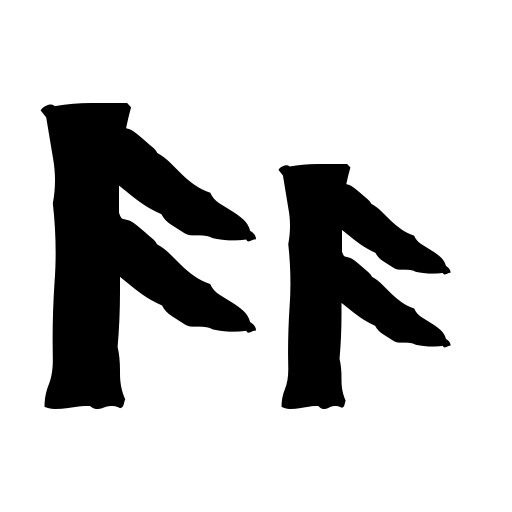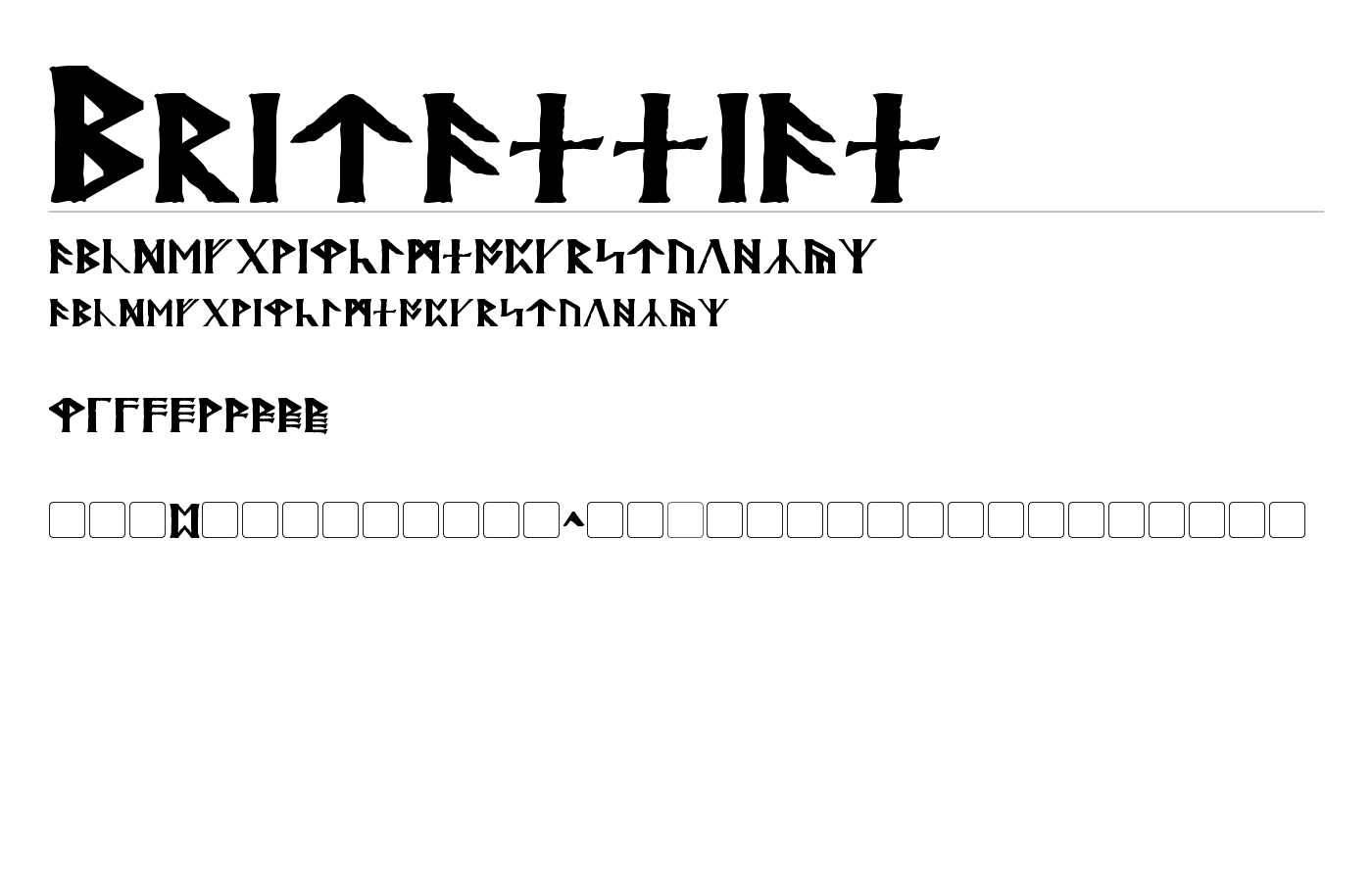
Britannian is a bold, stylized display font with a strong, angular character reminiscent of ancient runes or tribal inscriptions. Its heavy weight, sharp edges, and tall, condensed letterforms give it a striking, dramatic presence that works well for logos, posters, and branding needing a historic or fantasy-inspired look. This font’s unique, handcrafted feel adds a sense of mystery and rugged strength, making it perfect for creative projects seeking to evoke tradition and adventure.
Britannian Font